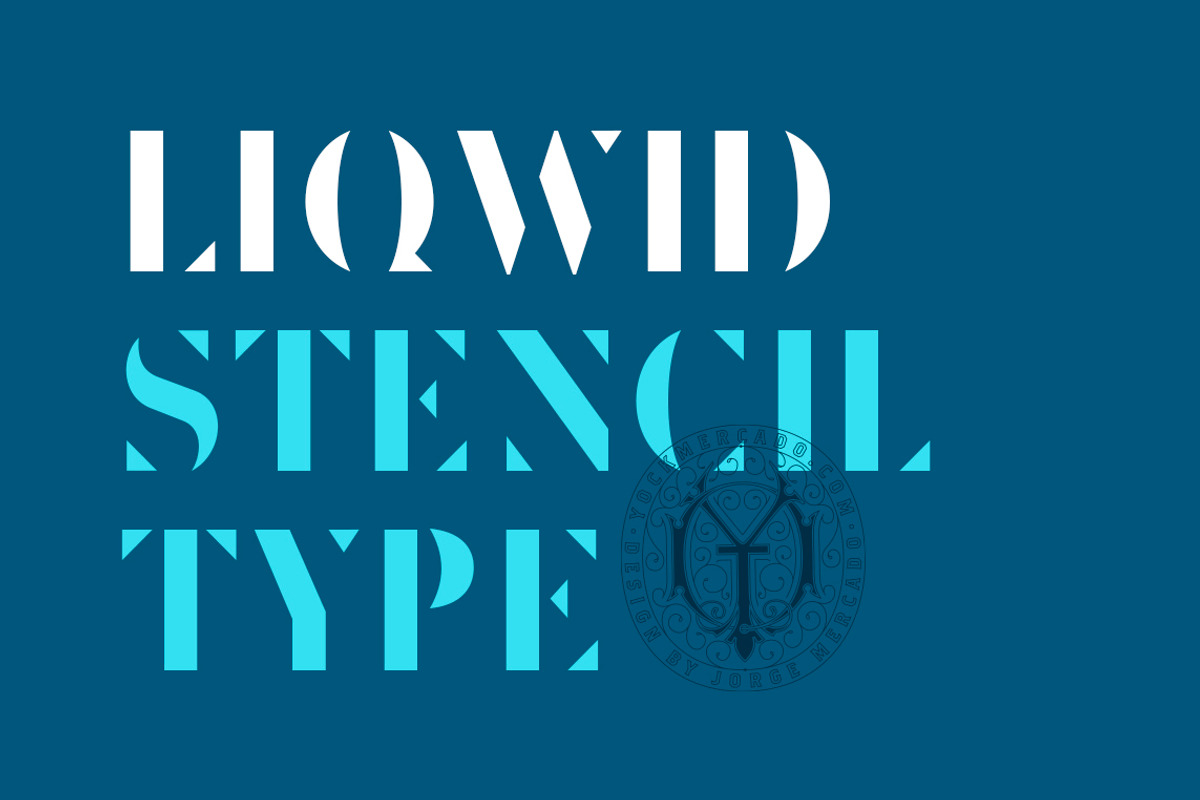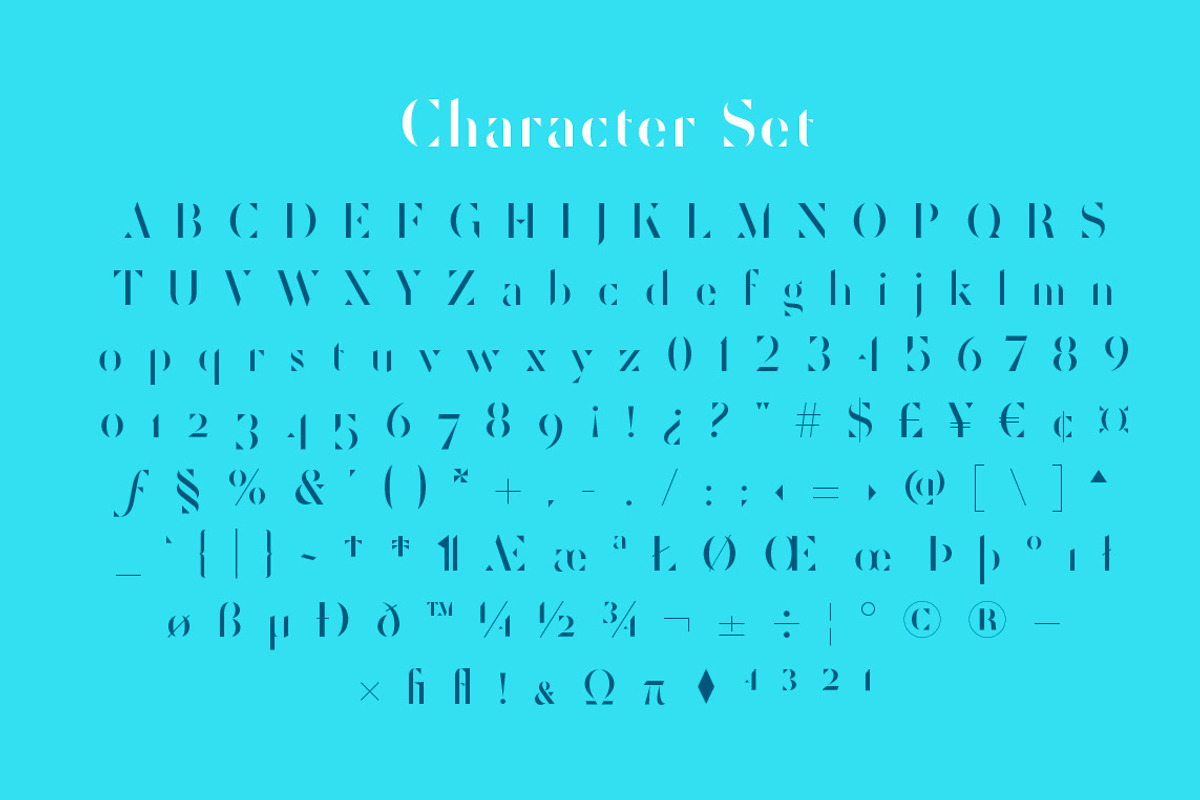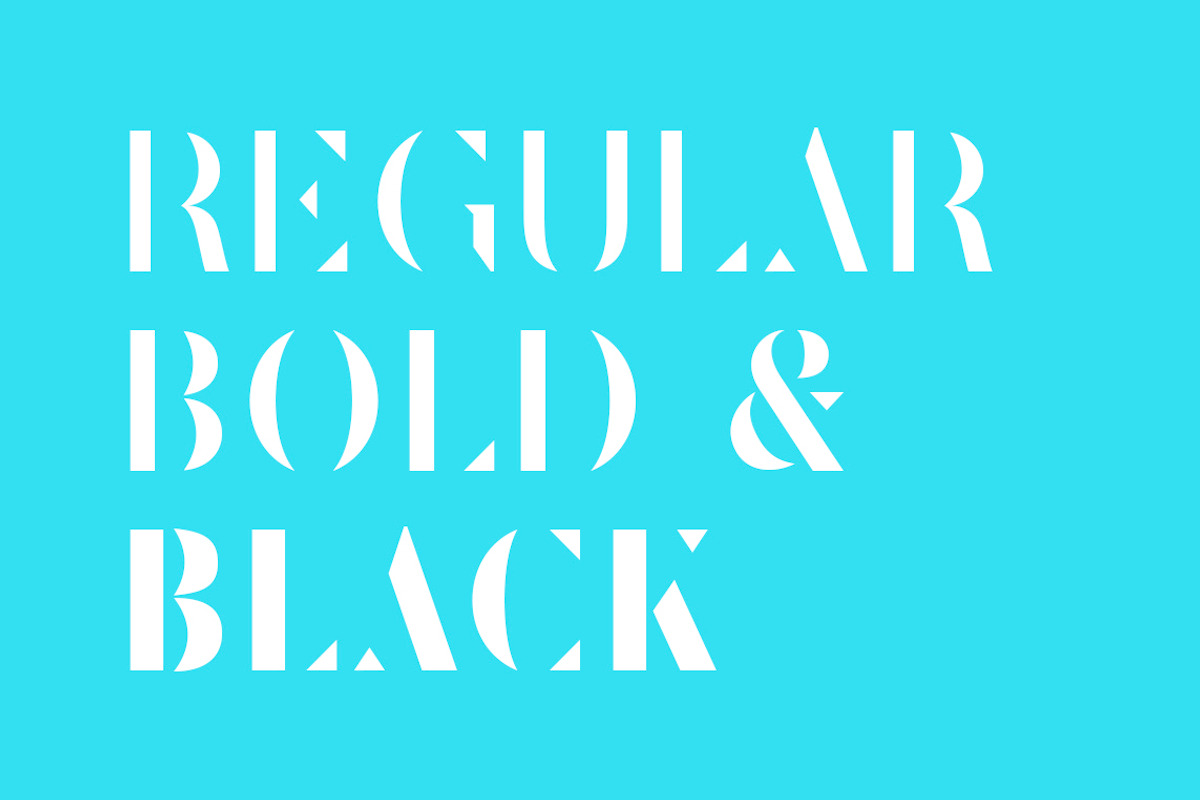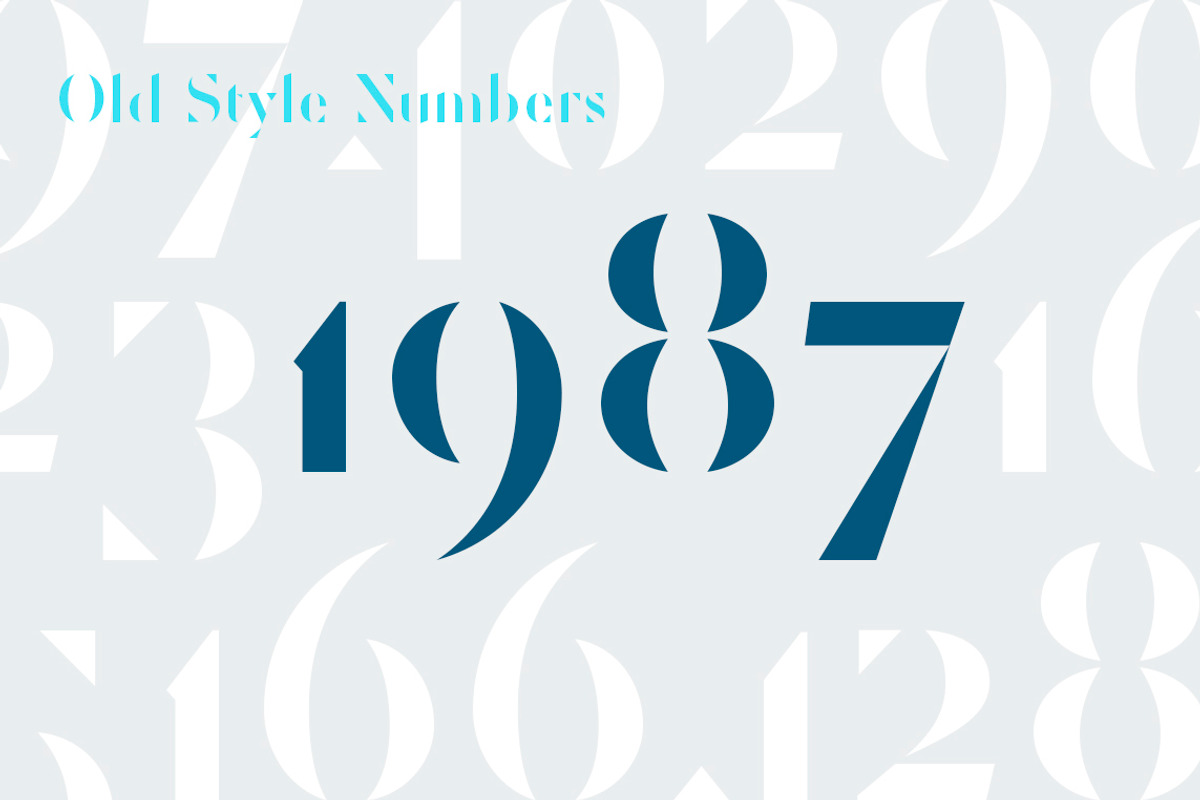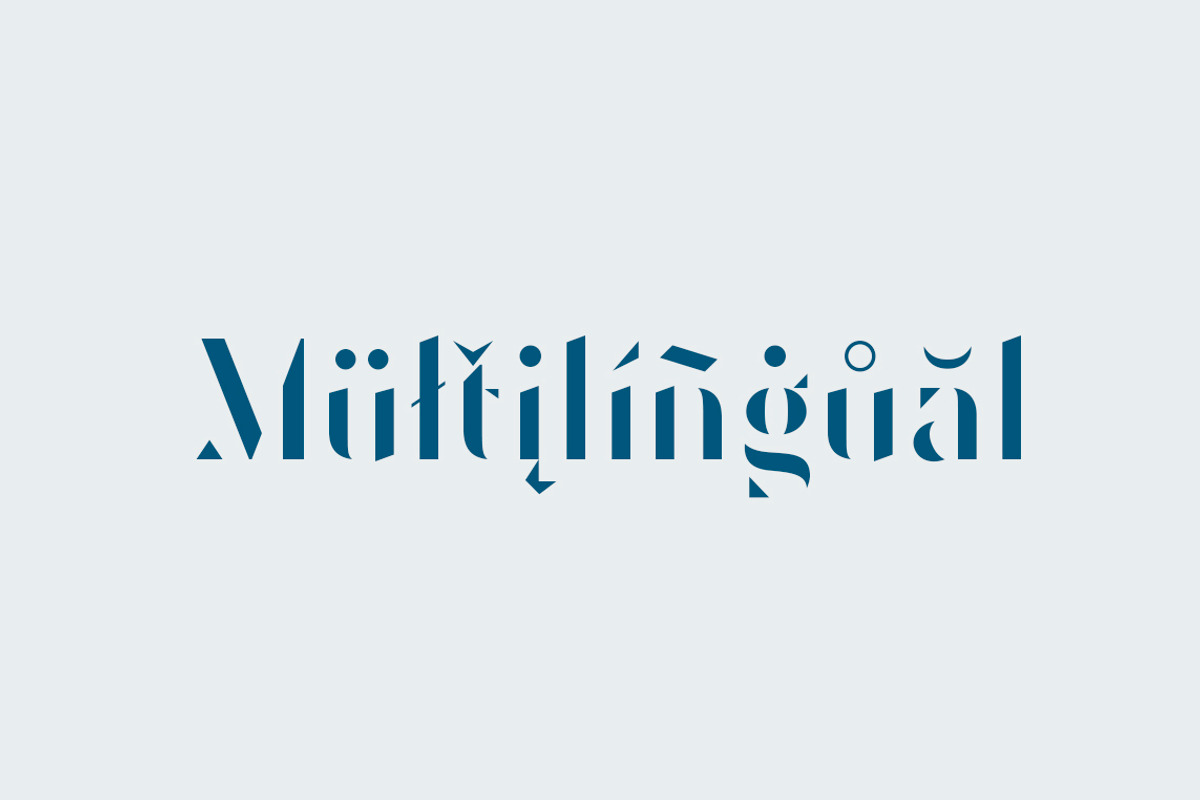
Liqwid Typeface
Liqwid is a sans serif typeface that takes inspiration in classic typefaces like didot and bodoni, using basic geometric shapes we build that typography, thinking in a stencil simple and elegant font that can be used in stencil cutting.
Thats a perfect option for branding projects, because you can write almost in every lenguage worldwide. We design three weights, Regular, Bold & Black.
- Liqwid Regular
- Liqwid Bold
- Liqwid Black